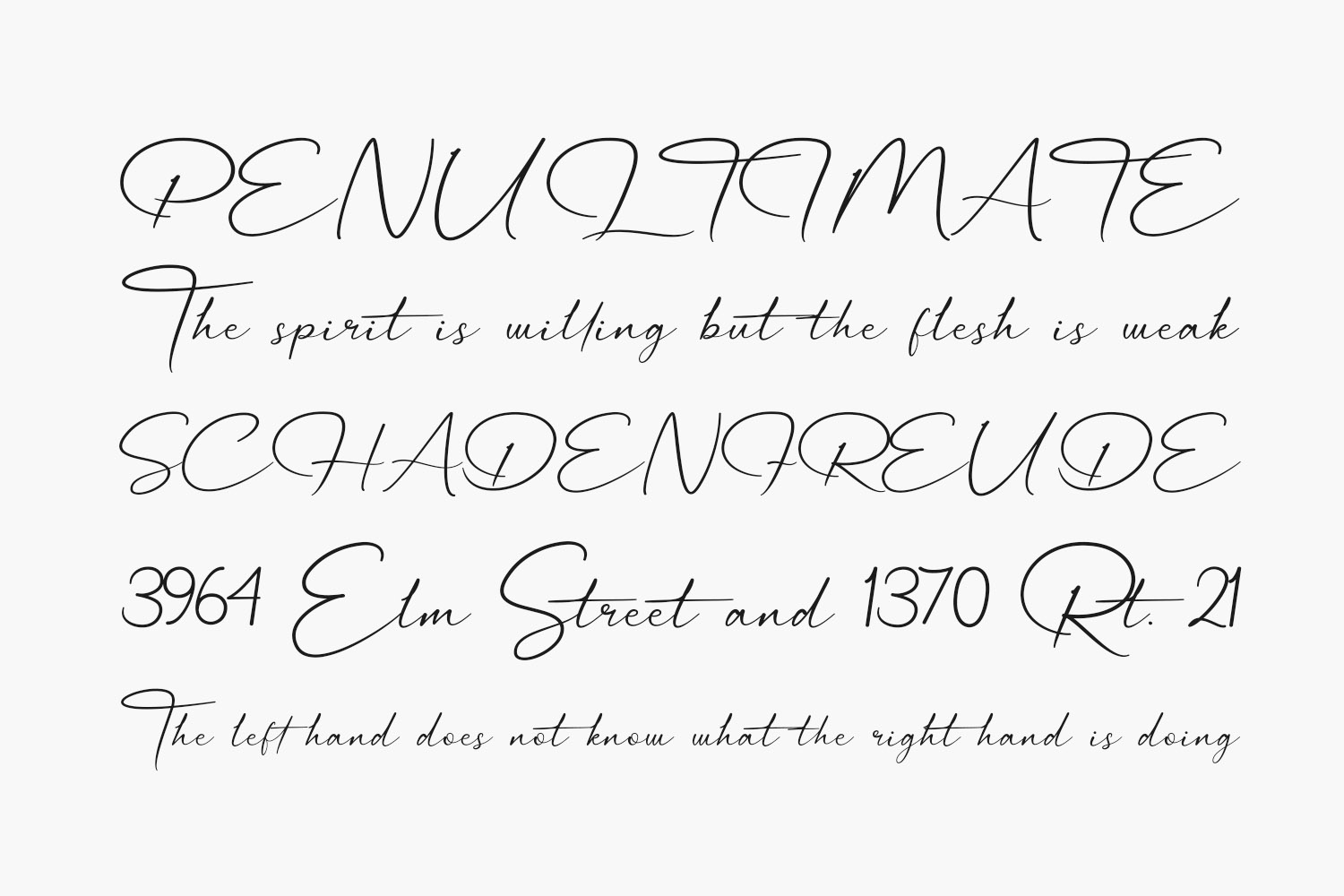
Pastamore Free Font is a romantic and sweet calligraphy typeface with characters that dance along the baseline. It will add a luxury spark to any design project that you wish to create. Pastamore Free Font is free for personal use only. Please purchase the full version for commercial use.